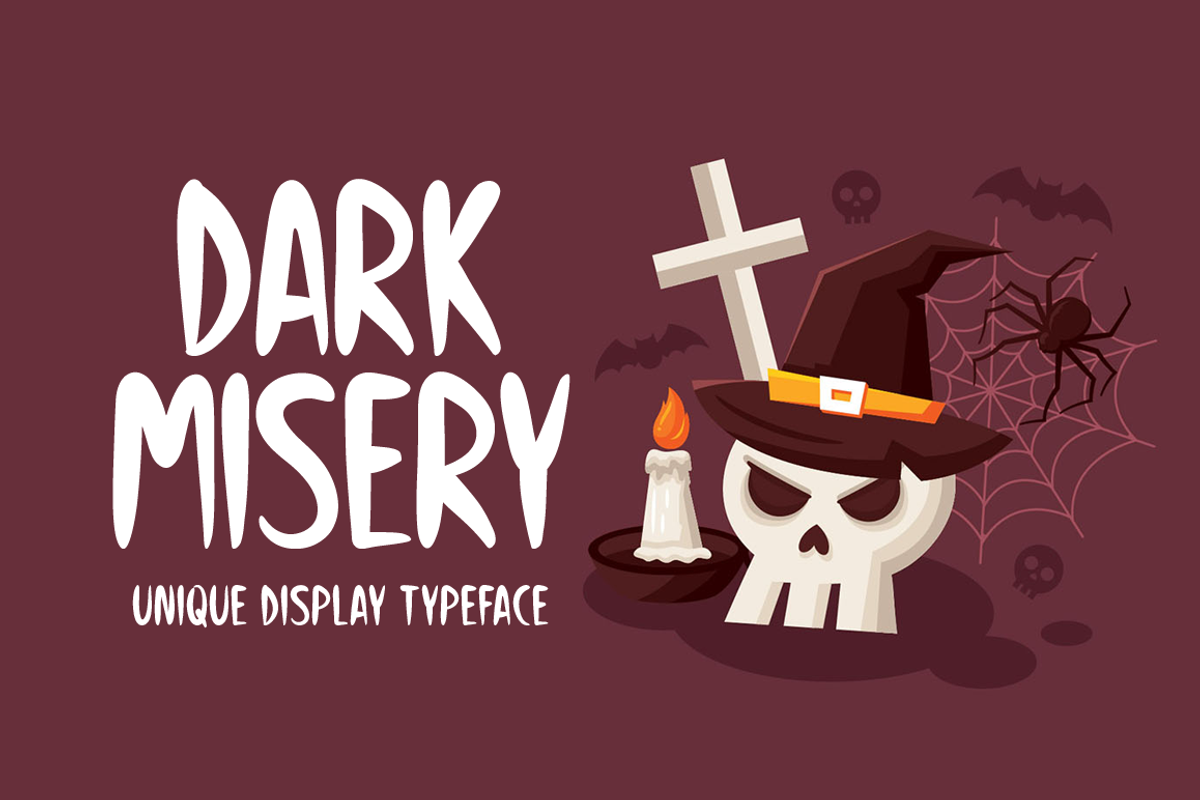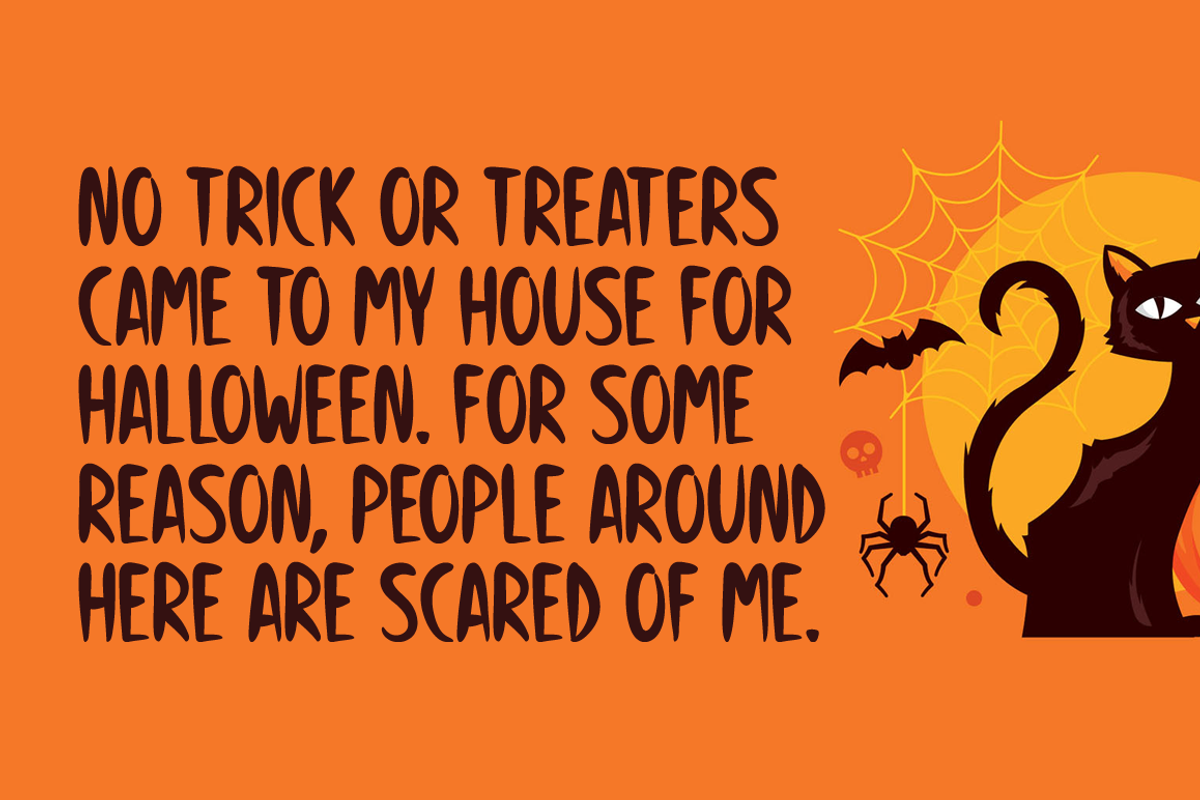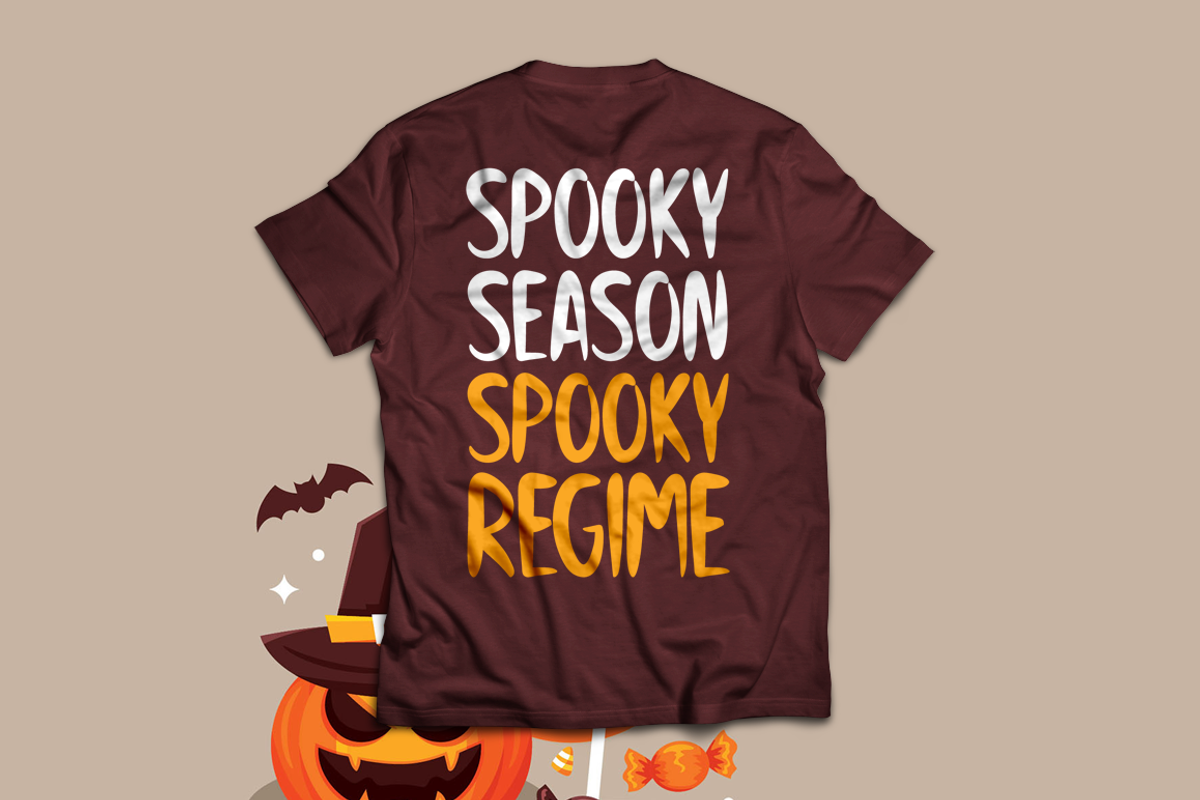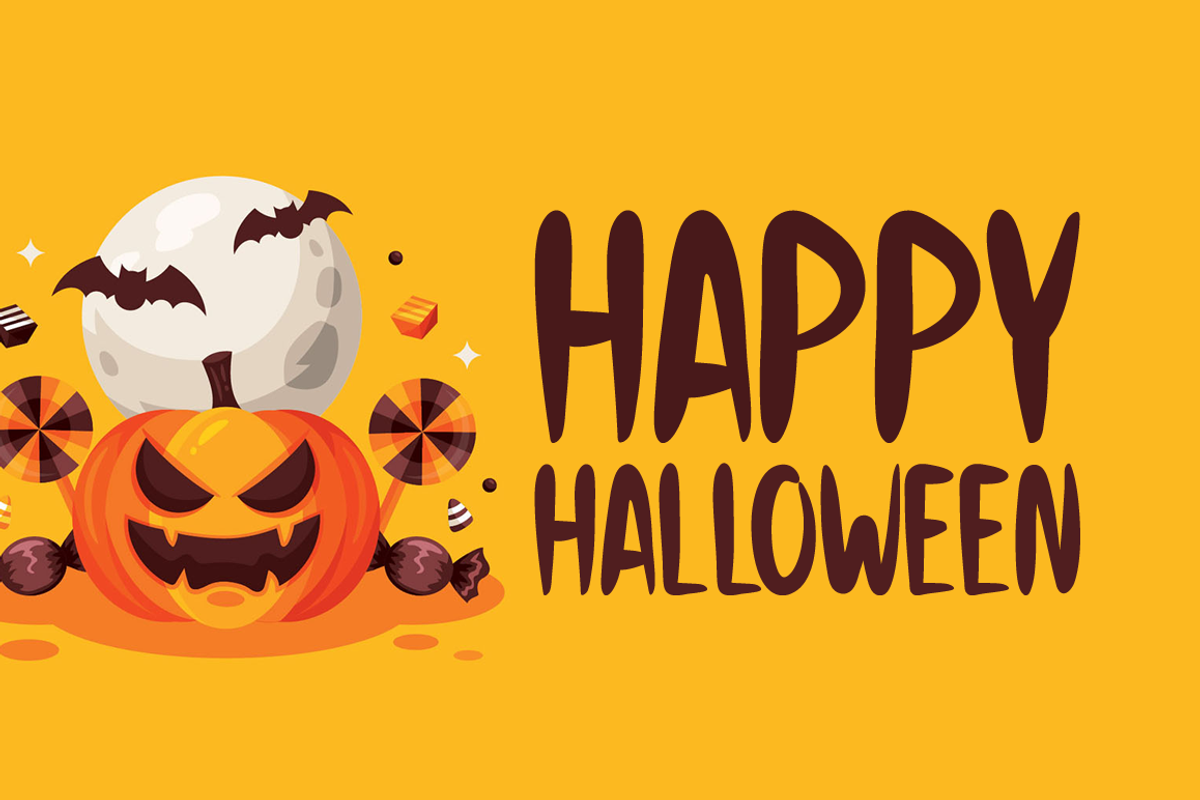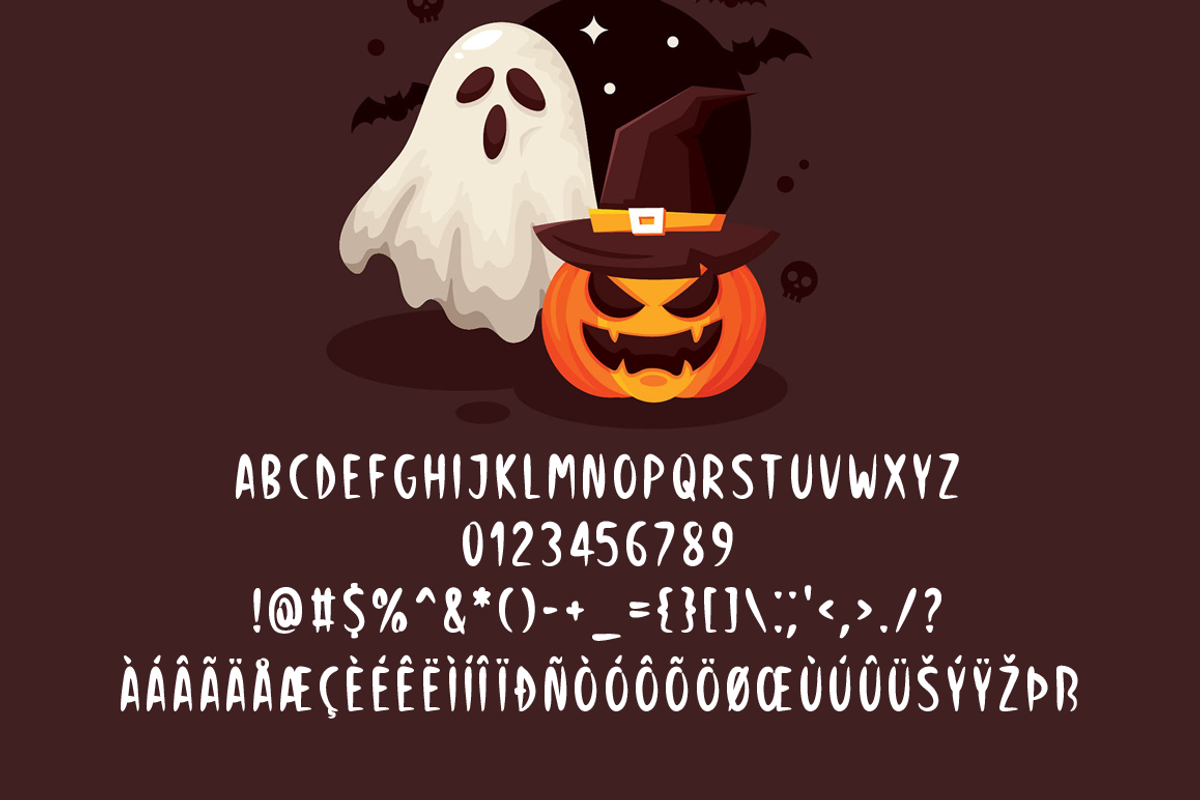
Dark Misery Typeface
Introducing Dark Misery!
Dark Misery is a simple yet spooky display font. This original look will appeal to a wide range of crafty ideas, from letterheads and titles to stationery.
Includes a range of multilingual support